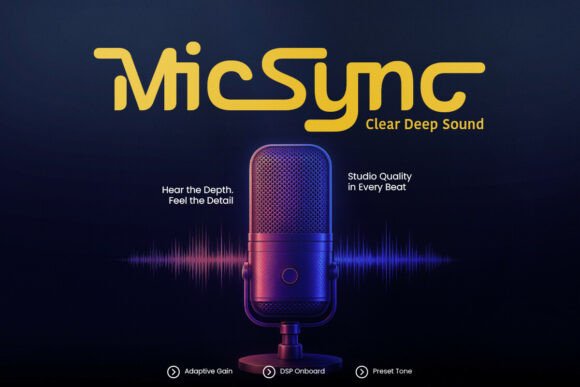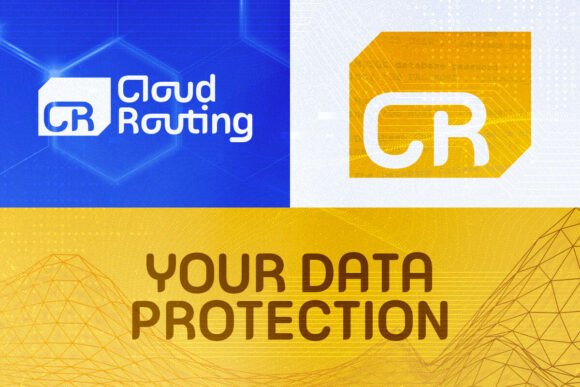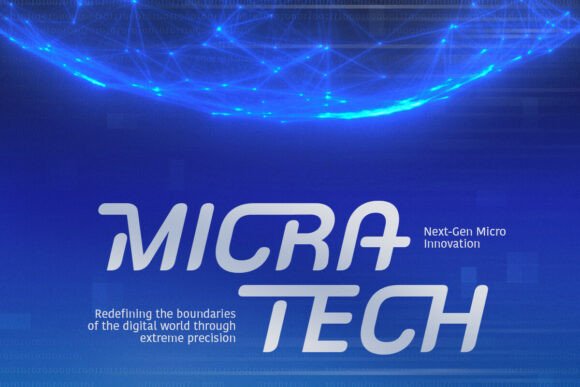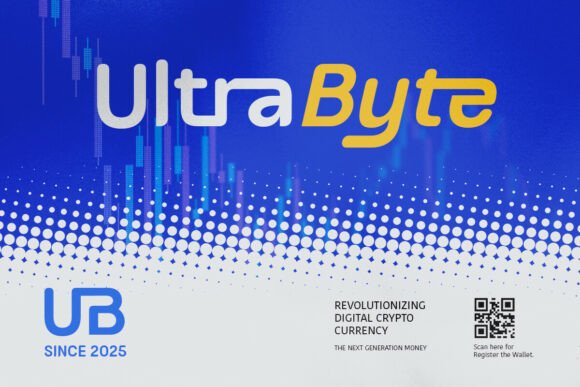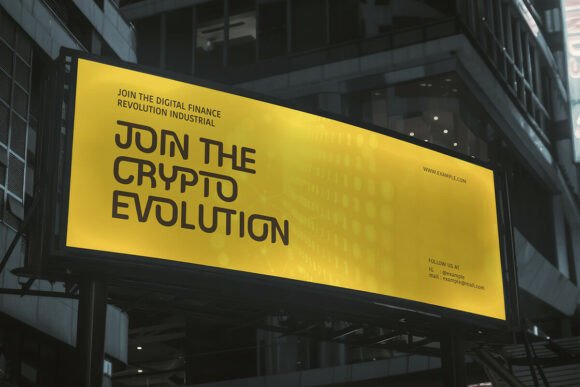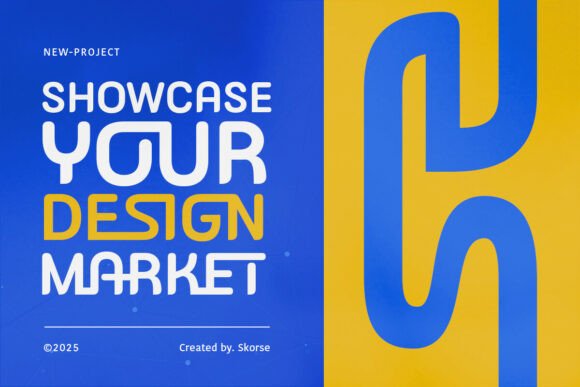
Introduction to Skorse Font
Have you ever stared at a blank canvas, waiting for inspiration to strike? That’s where the magic happens – when a single design element sparks an entire creative project. For many designers, the perfect font can be that elusive spark, setting the tone for a cohesive and captivating visual identity. That’s where Skorse Font comes in – a game-changing sans-based logo font with connected alternates that will revolutionize your design workflow.
What sets Skorse Font apart is its versatility and high quality. Whether you’re working on a logotype, branding, or hi-fi movie poster, this font’s futuristic look will elevate your project to the next level. Plus, its transparent background and support for multiple languages make it an invaluable design resource for creatives around the world.
Key Features of Skorse Font
- Comes in a single weight, providing a versatile design element for projects of varying complexity.
- Designed to be easily readable and recognizable, making it an excellent choice for branding and visual identity projects.
Honest Review: Skorse Font
I recently came across the Skorse Font, a free design resource that caught my attention. The first thing I noticed was its versatility – it can be used for a wide range of creative projects, from logos to digital art.
One of the standout features of the Skorse Font is its high quality. The font is crisp and clear, making it perfect for any design project. The transparent background is also a nice touch, allowing designers to easily overlay the font on different backgrounds.
- The font may not be suitable for large-scale printing due to its digital nature
- Some users may find the font too bold or overpowering
Overall, I’m impressed with the Skorse Font. It’s a great addition to any designer’s toolkit, and its free download makes it an attractive option for designers working on a budget. While it may have some limitations, the font’s high quality and versatility make it a valuable resource for any creative project.
Tips for Getting the Most Out of the Skorse Font
For the best results, use the Skorse Font with a transparent background to create a clean and modern design. You can also experiment with different font sizes and styles to add visual interest to your project. Additionally, consider using the Skorse Font in combination with other design resources, such as graphics and images, to create a cohesive and engaging design.
The Skorse Font is a versatile design resource that can be used in a variety of creative projects, including logos, social media graphics, and presentations. It’s also a great resource for designers who need a high-quality font with a transparent background.